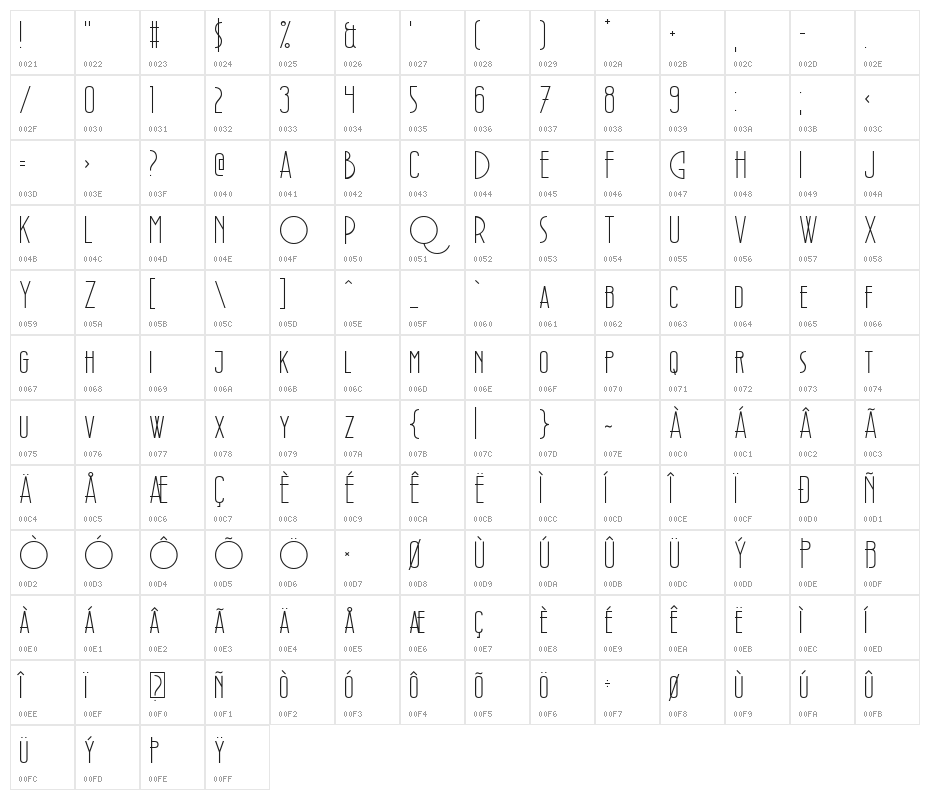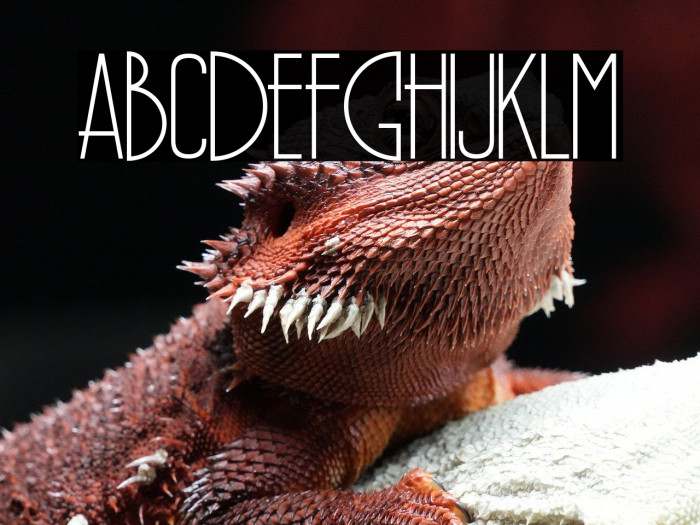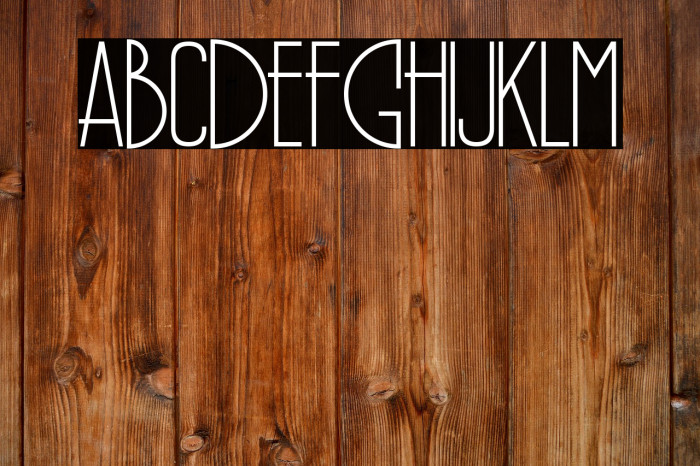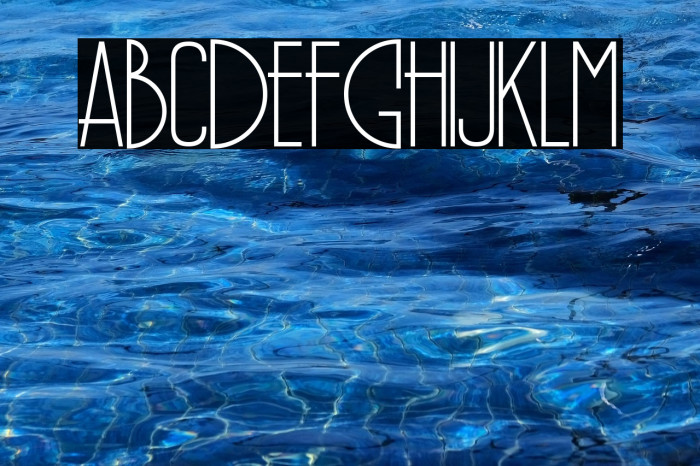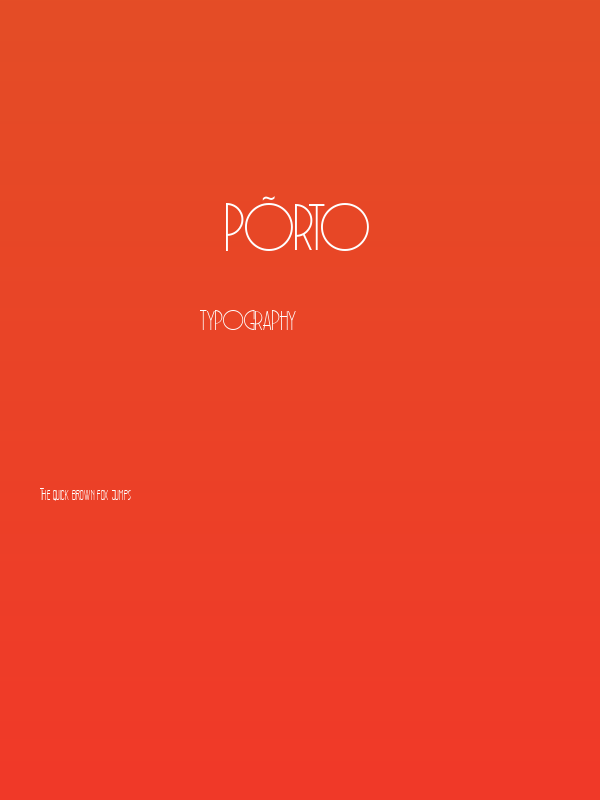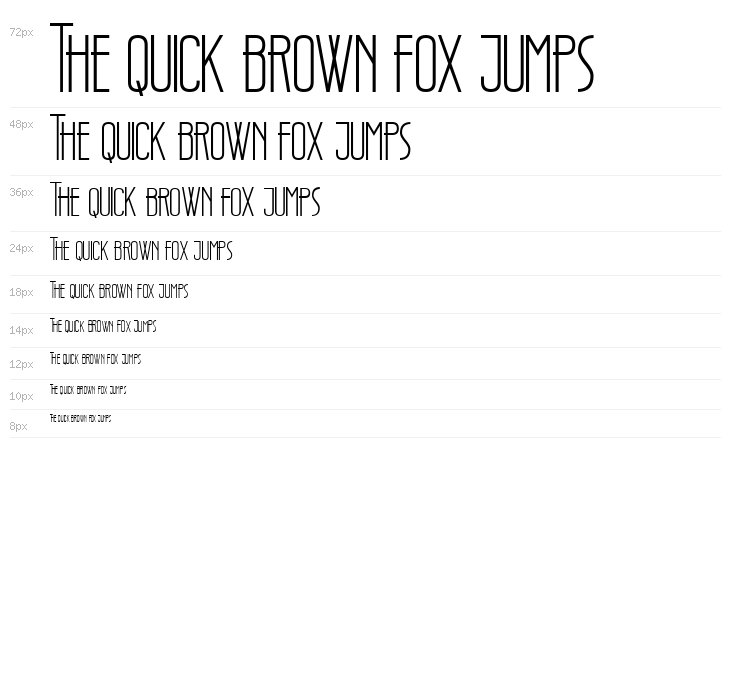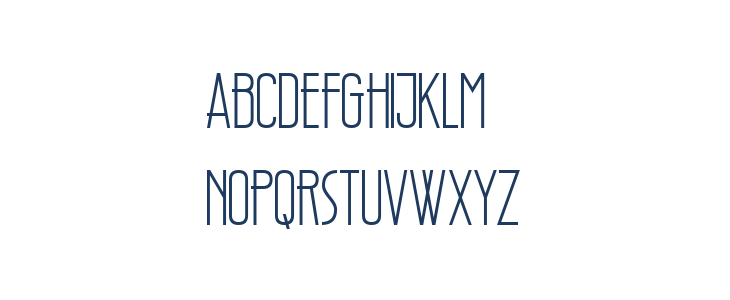
PÕRTO Font
PÕRTO Description
This font features a tall, narrow design with a modern and elegant aesthetic. The characters are elongated with a consistent stroke width, giving it a sleek and sophisticated appearance. The uppercase letters are particularly striking, with a geometric influence that adds to the font's contemporary feel. The lowercase letters maintain the same narrow structure, ensuring uniformity across the typeface. Numbers and special characters are designed with the same attention to detail, making them easily readable while maintaining the overall style. This font is ideal for projects that require a touch of modernity and elegance.
| Categories | Modern |
| Width | Condensed |
| Use Case | Headlines, Logos, Editorials |
| Proposed Projects | Ideal for fashion magazines, luxury branding, modern art posters, and editorial headlines. |